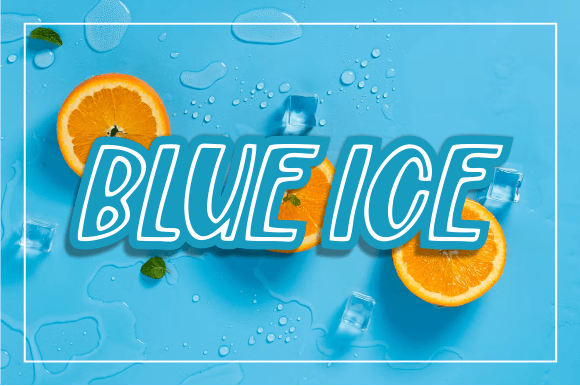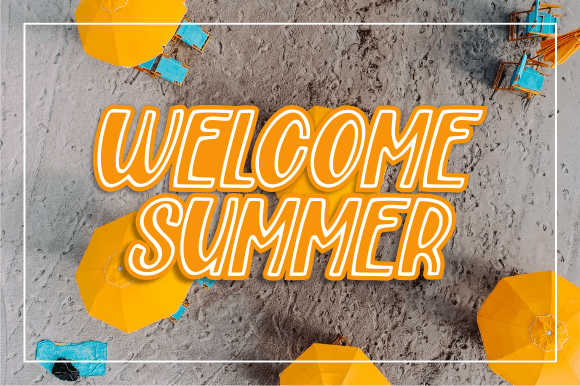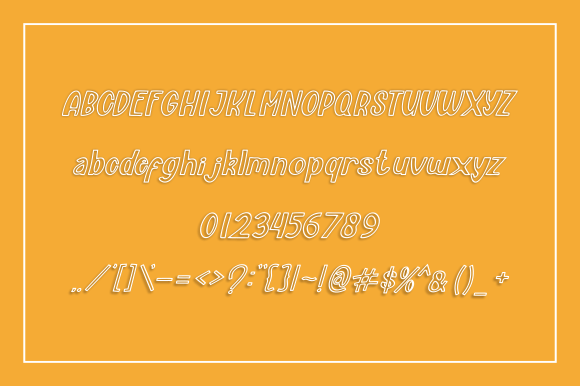
Introducing Bright Smile Font: Adding a Touch of Whimsy to Your Designs
Are you tired of using the same old fonts in your designs? Do you want to add a touch of fun and personality to your projects? Look no further than Bright Smile Font, a cool and unique font that’s sure to immerse your designs in a fun and bright world. With its modern yet whimsical style, Bright Smile Font is perfect for designers and crafters looking to add a little excitement to their work.
What is Bright Smile Font?
Bright Smile Font is a modern font that’s designed to bring a smile to your face. Its unique and playful style makes it perfect for a wide range of design projects, from children’s books and educational materials to branding and advertising. The font features bold lines, rounded edges, and a dash of whimsy, making it both fun and functional.
Key Features of Bright Smile Font
- Modern yet Whimsical Style: Bright Smile Font has a unique and playful style that’s both modern and whimsical. Its bold lines and rounded edges give it a friendly and approachable feel.
- Highly Readable: Despite its playful style, Bright Smile Font is highly readable, making it perfect for use in body text, headings, and titles.
- Versatile: Bright Smile Font is versatile and can be used in a wide range of design projects, from digital designs to print materials.
Why Use Bright Smile Font?
So why should you use Bright Smile Font in your designs? Here are just a few reasons:
- Add a Touch of Personality: Bright Smile Font adds a touch of personality to your designs, making them stand out from the crowd.
- Create a Fun and Engaging Atmosphere: The playful style of Bright Smile Font creates a fun and engaging atmosphere, perfect for designs that need to appeal to a younger audience.
- Perfect for Branding and Advertising: Bright Smile Font is perfect for branding and advertising projects, where you want to make a bold and memorable statement.
Design Ideas Using Bright Smile Font
Here are some design ideas that you can use Bright Smile Font for:
- Children’s Books: Use Bright Smile Font in children’s books to create a fun and engaging atmosphere.
- Branding and Advertising: Use Bright Smile Font in branding and advertising projects to make a bold and memorable statement.
- Social Media Graphics: Use Bright Smile Font in social media graphics to add a touch of personality and whimsy.
- Party Invitations: Use Bright Smile Font in party invitations to create a fun and festive atmosphere.
| Font Name | Bright Smile Font |
| Author | brahamb78 |
In conclusion, Bright Smile Font is a cool and unique font that’s perfect for designers and crafters looking to add a touch of fun and personality to their designs. With its modern yet whimsical style, Bright Smile Font is versatile and can be used in a wide range of design projects. So why not give it a try and see how it can add a smile to your designs?